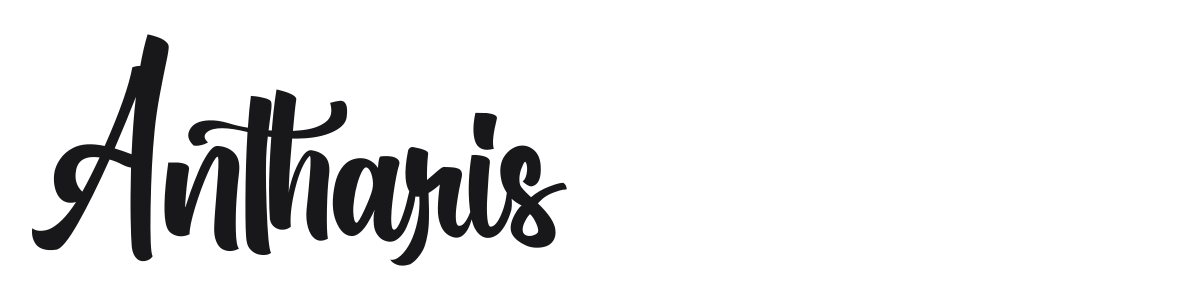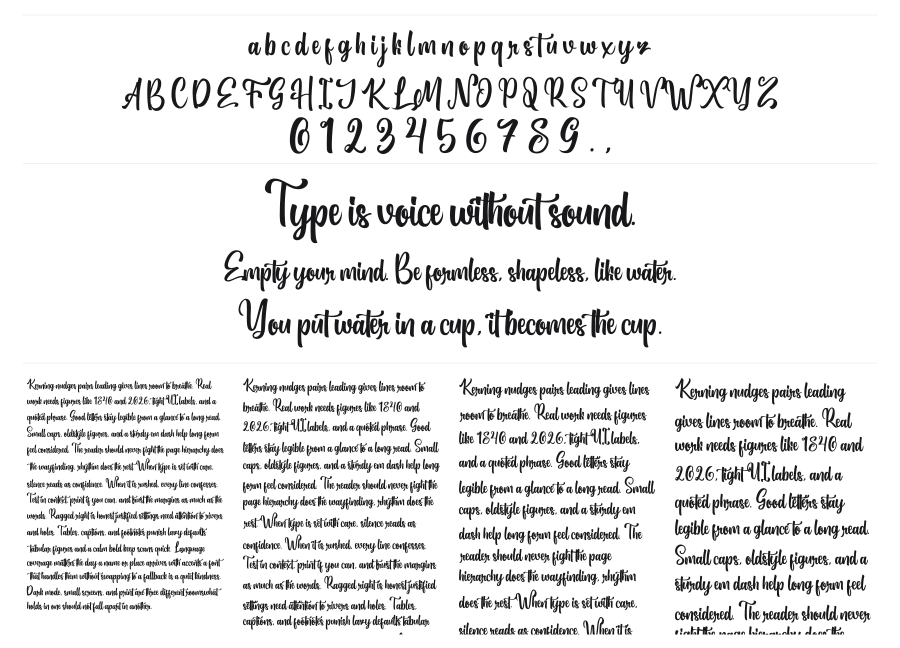
Antharis
Antharis is a bold brush script with lively stroke contrast and an energetic, bouncing rhythm. The thick downstrokes and sweeping connectors give it a handcrafted warmth that sits somewhere between casual lettering and formal calligraphy. It works best large, where its fluid connections and expressive terminals read clearly.